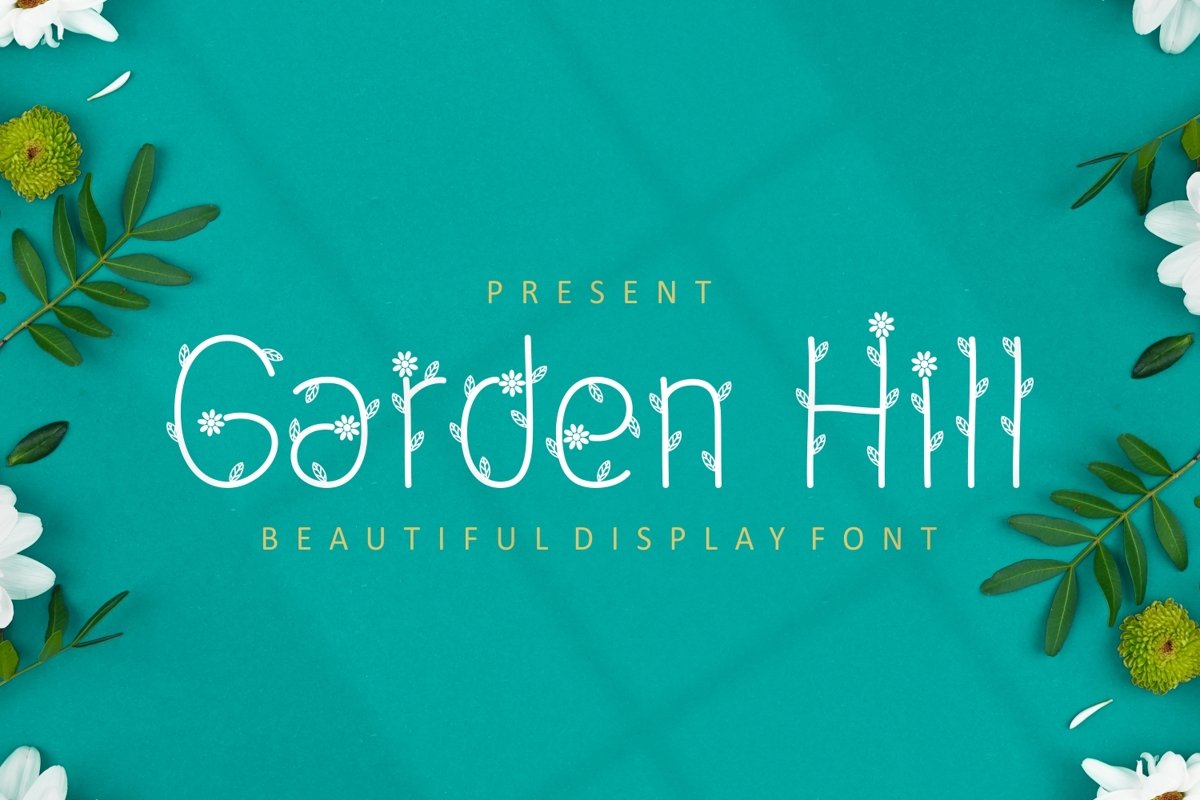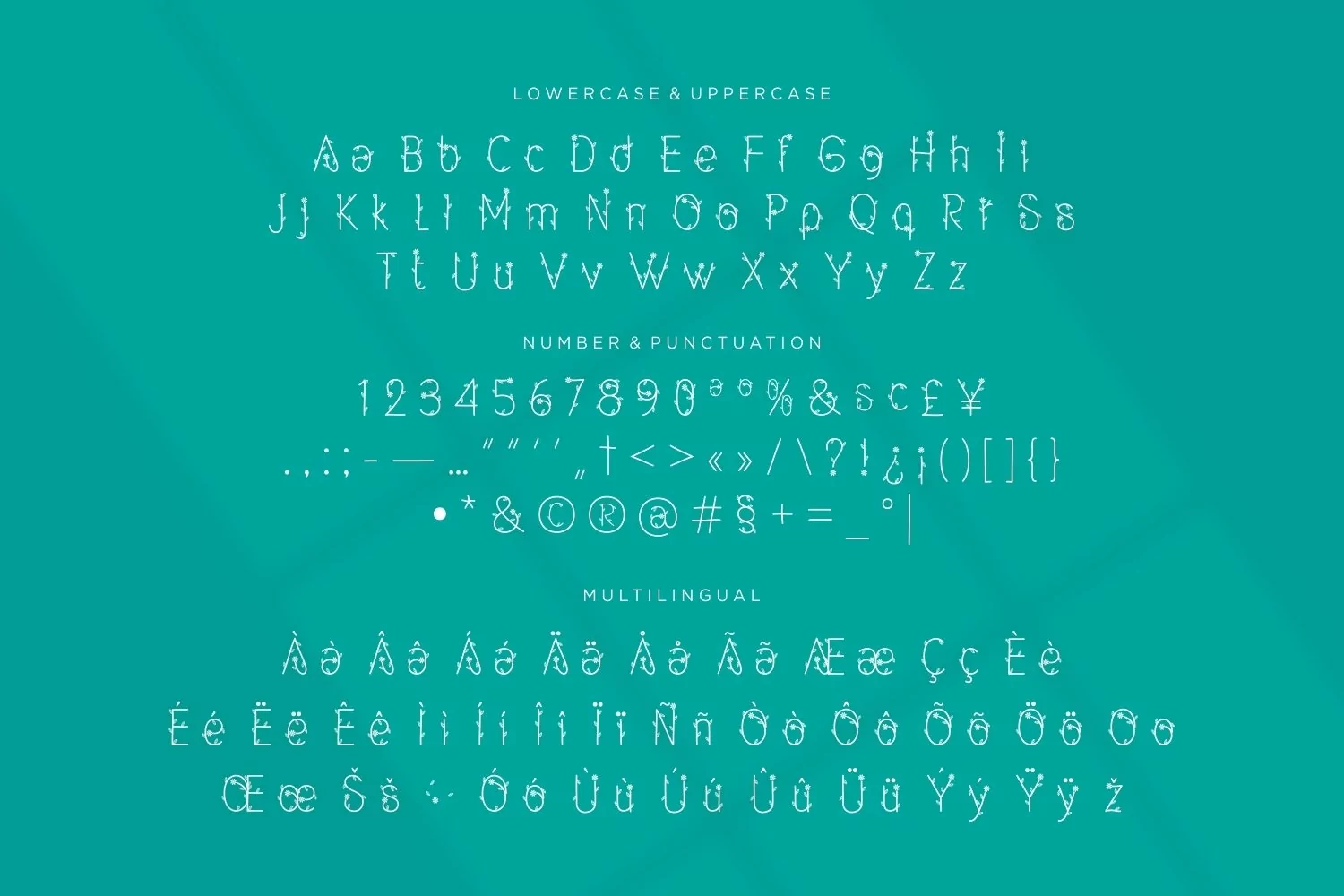
Garden Hill is a beautiful sans serif display come with decorative themes. We wanted to create looks lovely leaf in all characters. It matches applies in some designs such as the logotype, brand, packaging, quotes, cute poster, beauty shirt, cover book, birthday invitation and more custom design. The features uppercase, lowercase, numeral, punctuation & symbol, multilingual support, PUA encoded (fully accessible without additional design software).
Garden Hill